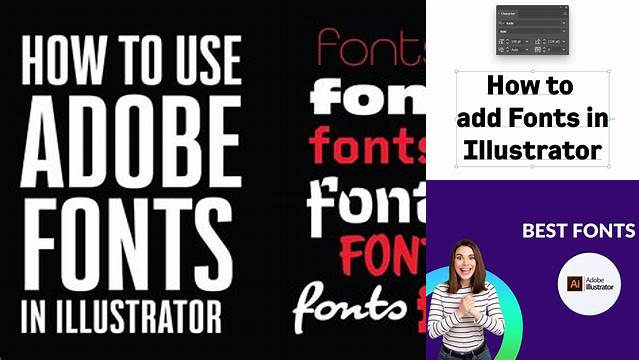
Using Adobe Stock Fonts In Illustrator: A Simple Guide
Hey guys! Ever wondered how to jazz up your Illustrator projects with some awesome fonts from Adobe Stock? Well, you're in luck! This guide will walk you through everything you need to know about using Adobe Stock fonts in Illustrator, making your designs pop with professional typography. We'll cover the whole shebang, from finding the perfect fonts to actually using them in your artwork. So, grab your coffee, get comfy, and let's dive in! Adobe Stock offers a vast library of fonts, and integrating them into your Illustrator workflow is easier than you might think. This opens up a world of creative possibilities, allowing you to choose from a diverse range of typefaces to perfectly match your project's style and tone. Whether you're designing a sleek logo, a vibrant poster, or a detailed infographic, the right font can make all the difference. In this article, we will explore the steps to seamlessly integrate and utilize these fonts, ensuring that your designs not only look great but also adhere to licensing and usage guidelines. It's all about making your workflow smoother and your designs more impactful. Let's get started, shall we?
Finding and Accessing Adobe Stock Fonts in Illustrator
Alright, first things first, let's get you set up with access to those amazing fonts! The good news is that Adobe has made it super easy to browse and snag fonts right within Illustrator. No more jumping between different apps; it's all right there at your fingertips. Here's the lowdown on how to find and access Adobe Stock fonts, ensuring you can quickly integrate them into your workflow. First, make sure you have an active Adobe Creative Cloud subscription, as this is your key to unlocking the font library. Head over to the Character panel in Illustrator; you can usually find it under 'Window' then 'Type' and then 'Character'. Click on the drop-down menu for the font selection – this is where the magic happens. You'll see a bunch of font options, but look for the Adobe Fonts tab (it might say 'More Fonts' or similar). Click on that, and you'll be whisked away to a world of typography possibilities. Here, you can browse, search, and filter fonts to your heart's content. Filter by classifications like serif, sans-serif, or script, or narrow your search based on the font's style, weight, and other characteristics. When you find a font you like, you can activate it directly from this panel. Simply click the activation button (usually a cloud icon), and Illustrator will sync the font to your system. Voila! It's ready to use in your design. You can also go to the Adobe Fonts website, which offers even more advanced filtering options and detailed information about each font. Once you activate a font, it's available in all your Adobe apps, making it a seamless experience across your entire creative suite. Isn't that cool?
Integrating Adobe Stock Fonts into Your Illustrator Projects
Alright, now that you've got the fonts activated and know the licensing rules, let's get to the fun part: integrating those awesome fonts into your Illustrator projects! This is where your designs start to shine, so pay close attention, folks. The process of using Adobe Stock fonts in your projects is incredibly straightforward, thanks to Illustrator's seamless integration. Once you've activated a font, it automatically appears in the font selection menu within the Character panel. Simply select your text, click the font dropdown, and choose the Adobe Stock font you want to use. You'll see a preview of the font, allowing you to quickly see how it will look in your design. Experiment with different font sizes, weights, and styles to find the perfect fit for your project. Illustrator offers a ton of options for customizing your text. Beyond the basic selection, you can adjust kerning (the space between individual characters), tracking (the space between all characters in a word or line), and leading (the space between lines of text). These adjustments can significantly impact the overall look and readability of your design. Another tip is to use Adobe's font pairing suggestions. Illustrator often provides suggestions for matching fonts that complement each other. This can be a lifesaver when you're unsure which fonts to pair together. These font pairings are usually based on design principles, such as contrast, harmony, and visual appeal.
Using Adobe Stock Fonts for Typography-Focused Designs
Now that you know how to integrate fonts, let's dive into using them for typography-focused designs. Typography-focused designs really showcase the beauty and power of fonts. Whether you're designing a poster, a website header, or a quote graphic, the right font choices can make a massive impact. For typography-focused designs, choosing the perfect font is crucial. Start by considering the overall tone and message of your project. Is it modern and sleek, or playful and whimsical? The font should match the mood. Experiment with different font combinations. Don't be afraid to try pairing different fonts to create contrast and visual interest. Using bold headlines and contrasting fonts can draw the viewer's attention. Make sure your chosen fonts are readable. Consider the size and weight of the fonts, especially when designing for print or digital displays. It's easy to use fonts that are difficult to read, especially in small sizes. Balance the font choices with the overall design. Make sure your typography complements the other elements of your design. Consider using the fonts to create a cohesive visual experience. Play with different font sizes and styles to create visual hierarchies. You can use larger, bolder fonts for headlines and smaller, more readable fonts for body text. Experiment with text alignment. Consider how different alignments can change the look and feel of your text. Also, create different effects with your text. Illustrator allows you to create a variety of cool effects, such as drop shadows, outlines, and gradients, making your text pop. Typography-focused design is about making the fonts the star. It's about choosing the right fonts and making them work for your design. So, have fun and get creative!
Adobe Stock Fonts for Branding and Logo Design
Let's talk about using Adobe Stock fonts for branding and logo design. Fonts play a massive role in this, as they communicate brand identity. Branding and logo design are all about creating a visual identity that represents a company or product. Your chosen fonts will influence how your brand is perceived. When selecting fonts for branding and logo design, consider the brand's personality and values. A playful brand might use a more whimsical font, while a serious brand might opt for something more professional. Also, think about the logo's overall look and feel. Does the font fit the aesthetic? Create a visual hierarchy. This helps guide the viewer's eye and makes the logo more memorable. Ensure the font is versatile and can be used across various platforms. Ensure the logo is readable and memorable. Think about the logo's context. Is it being used on a website, business card, or social media? The font should look good in each of these scenarios. Keep the font consistent across all your branding materials. The font will create brand recognition, and make your branding more cohesive. A consistent font builds brand recognition. Ensure the font is unique and sets your brand apart. The font will create a strong and distinct visual identity. Choose fonts that are easy to read and scale across different sizes. The font should look good whether it's on a small business card or a large banner. Test your logo and fonts in different applications. Test it out to see how it looks in different contexts.
Troubleshooting Common Issues with Adobe Stock Fonts
Sometimes, things don't go as planned. Let's talk about some common issues you might encounter when using Adobe Stock fonts in Illustrator and how to fix them. Dealing with tech glitches can be frustrating, so let's get you some solutions, shall we? One common issue is that a font doesn't appear in your font list. This can be caused by several things. Check if the font is activated. If not, go back to the Adobe Fonts website or your Creative Cloud app and activate it. Ensure you have an active Adobe Creative Cloud subscription. If your subscription has expired, you won't be able to access or use Adobe Stock fonts. Update your Illustrator. Sometimes, out-of-date software can cause compatibility issues with new fonts. Try restarting Illustrator and your computer. This can often clear up minor glitches and sync your font library. Another issue is that the font appears distorted or incorrect. This is often due to font conflicts. If you have a similar font installed locally, it may be conflicting with the Adobe Stock version. Try disabling or removing your local version of the font. Another fix is to try clearing the font cache. This forces Illustrator to re-read your fonts and fix any problems. If the font still looks off, it might be a rendering issue. Experiment with different font sizes and weights. Another common problem is font licensing. Be sure you have proper rights to use the font. Double-check the licensing terms to make sure you're using it correctly. Always refer to the Adobe Fonts website or the Creative Cloud app. Use these resources for troubleshooting or contacting customer support.
Dealing with Missing Fonts in Your Illustrator Files
Hey guys, sometimes you open an Illustrator file and get that dreaded 'missing font' message. Missing fonts can be a real headache, but don't worry, we've got you covered. Here's what you can do to handle missing fonts in your Illustrator files. The first step is to identify the missing font. Illustrator will usually tell you the name of the missing font. With this information, you can start troubleshooting. Check if the font is activated. If the font is from Adobe Stock, ensure it's activated through the Adobe Fonts website or the Creative Cloud app. If it's a font you installed yourself, make sure it's installed correctly on your system. If you can't find the exact font, you can substitute it. Illustrator allows you to replace missing fonts with other fonts that are already installed. This is a quick fix. Try to find a similar font to maintain the overall look of your design. Update your Illustrator. Make sure you're using the latest version of Illustrator. This can resolve issues and prevent missing fonts from appearing. Restart Illustrator. A simple restart can often fix font-related issues and refresh your font library. It will allow the app to recognize the font. If you're working on a project with a team, make sure everyone has the correct fonts installed. This avoids inconsistencies. Save a copy of your file with the fonts embedded. This will ensure the fonts are included, making it accessible to people who do not have the font. Before opening the file, create a backup copy. This protects your work. Dealing with missing fonts can be tricky, but by following these steps, you can keep your designs looking their best.
Conclusion: Mastering Adobe Stock Fonts in Illustrator
And there you have it, folks! You're now equipped with the knowledge to harness the power of Adobe Stock fonts in Illustrator. From finding and activating fonts to integrating them into your projects, troubleshooting common issues, and understanding best practices, you're on your way to creating visually stunning designs. Using fonts from Adobe Stock can expand your creative options. Remember to always respect font licensing, experiment with different styles, and most importantly, have fun! Now go out there and make some awesome designs! Don't be afraid to experiment.